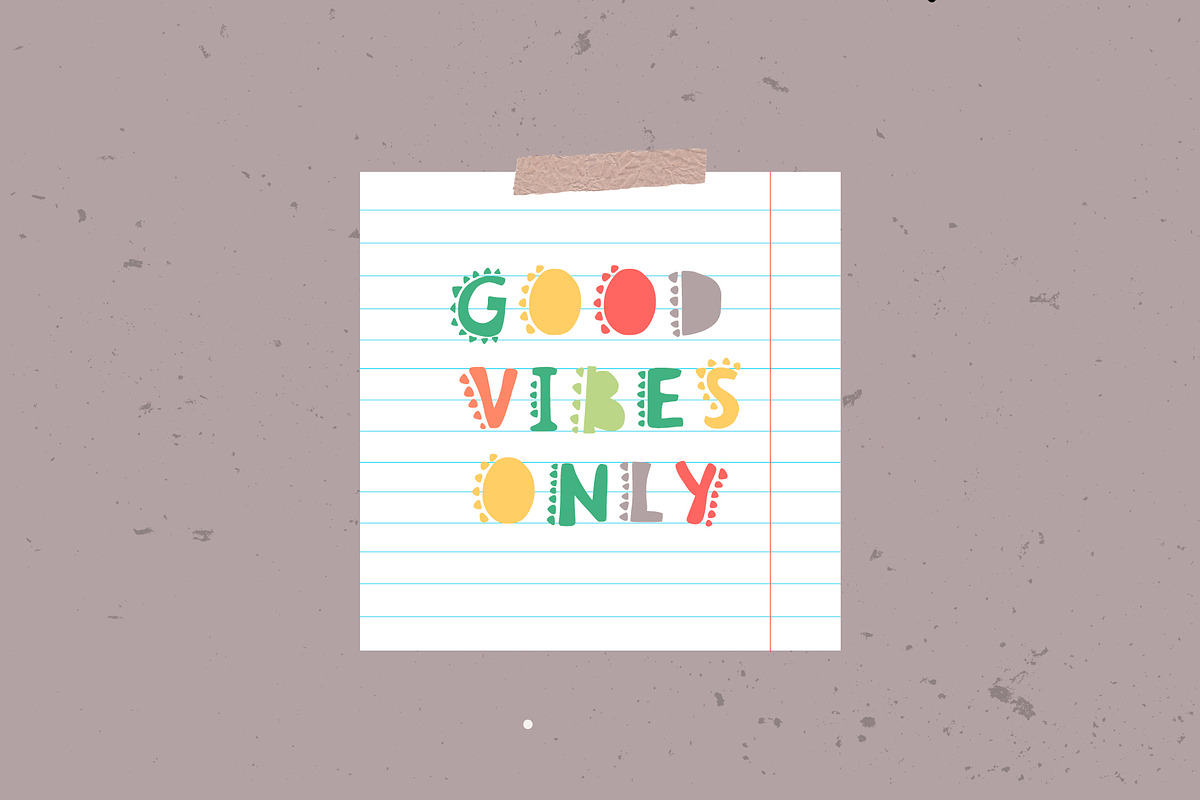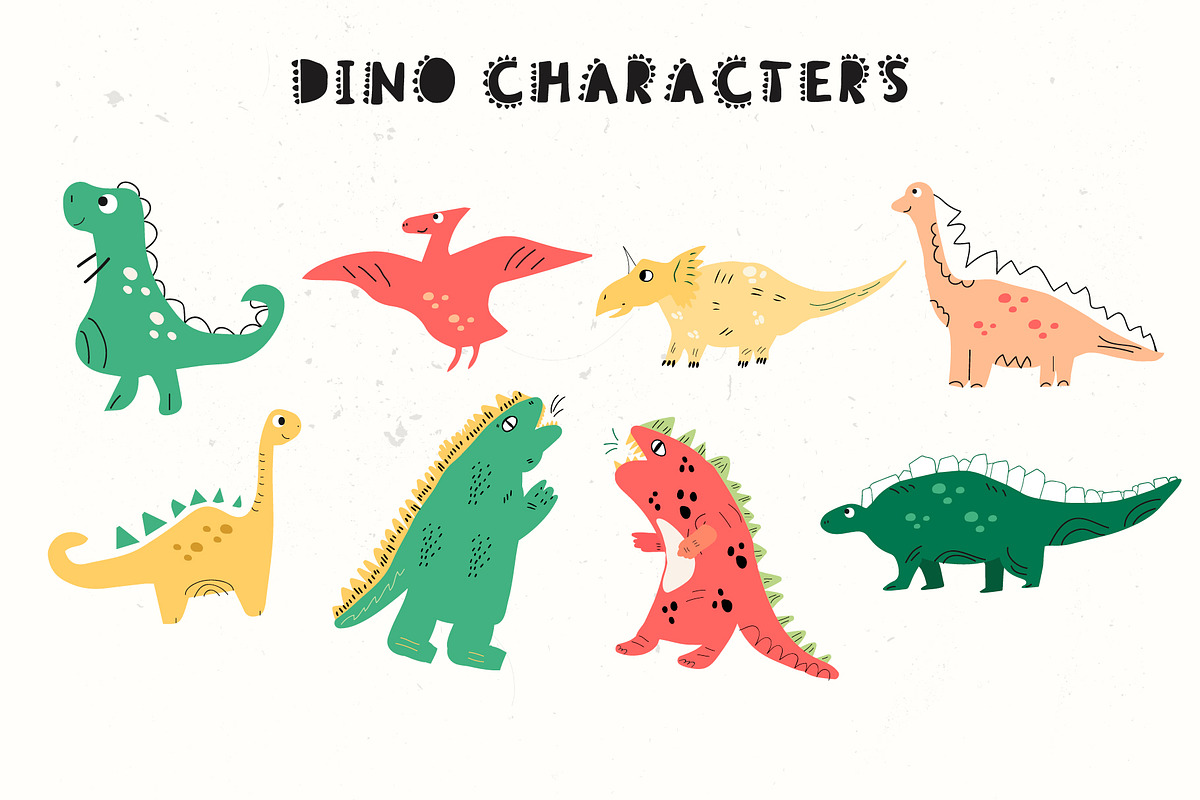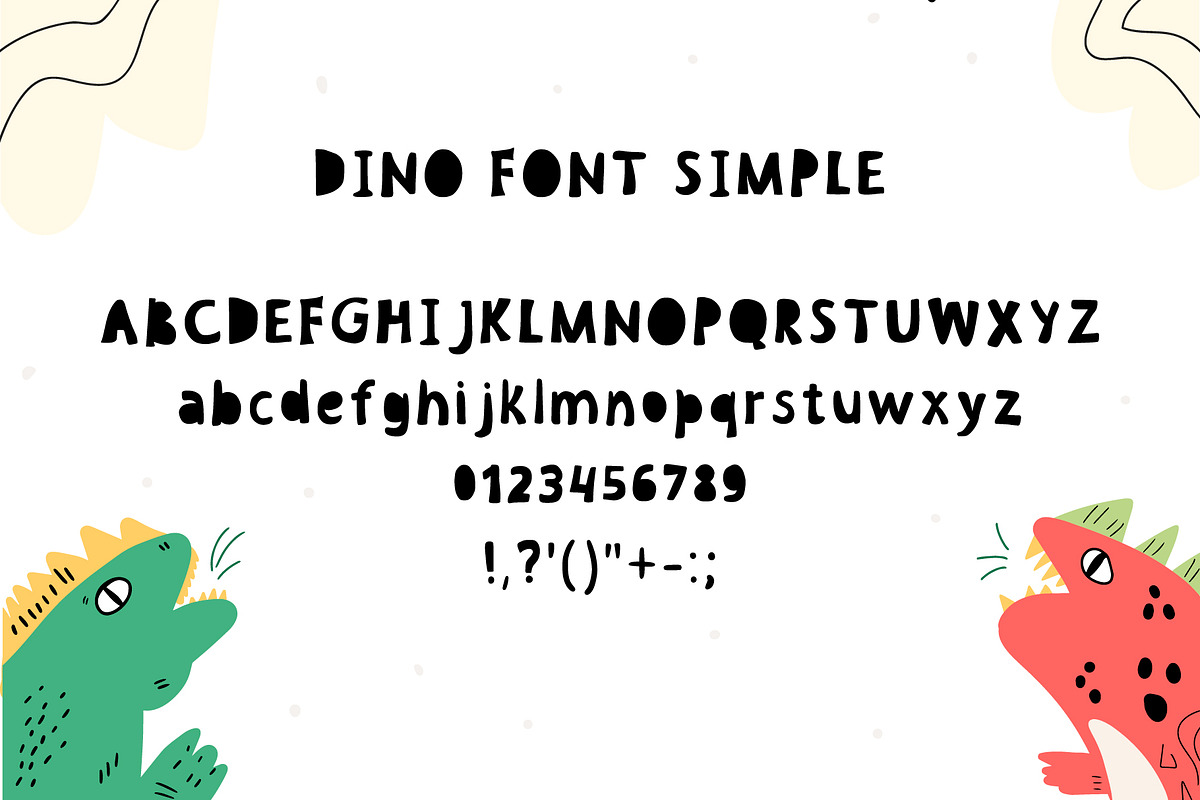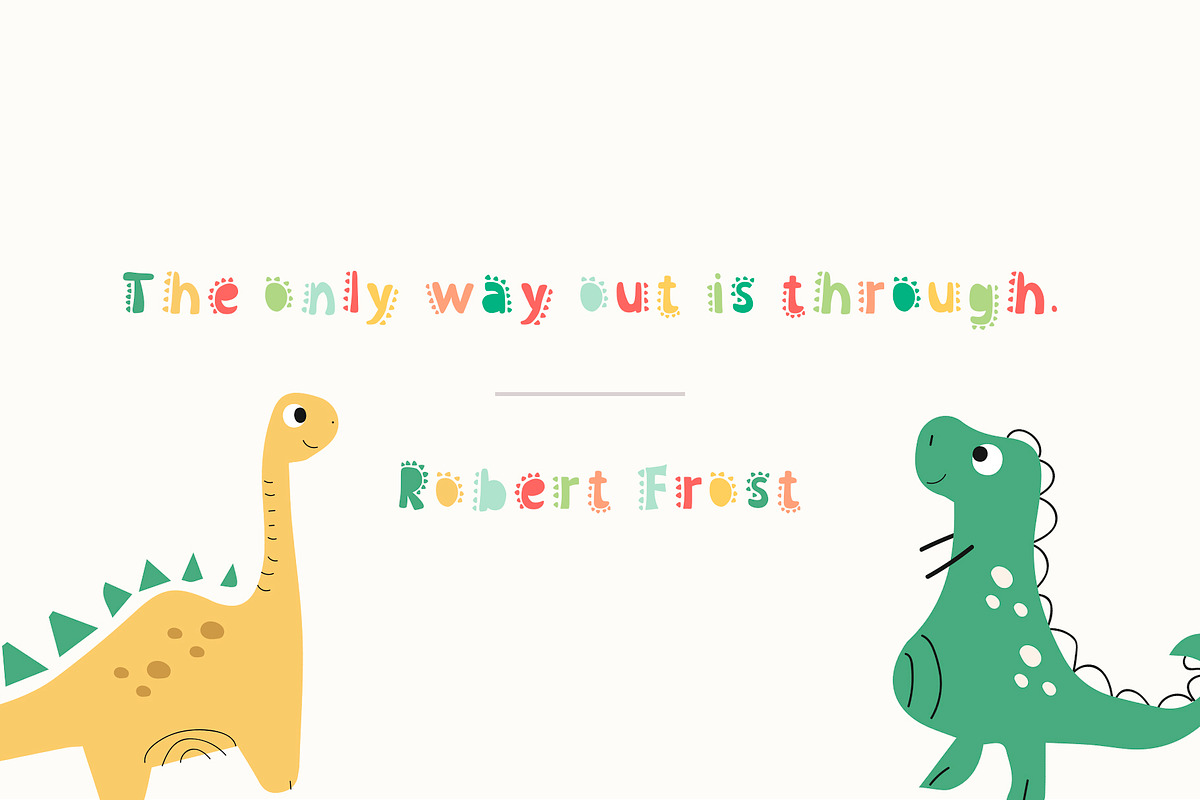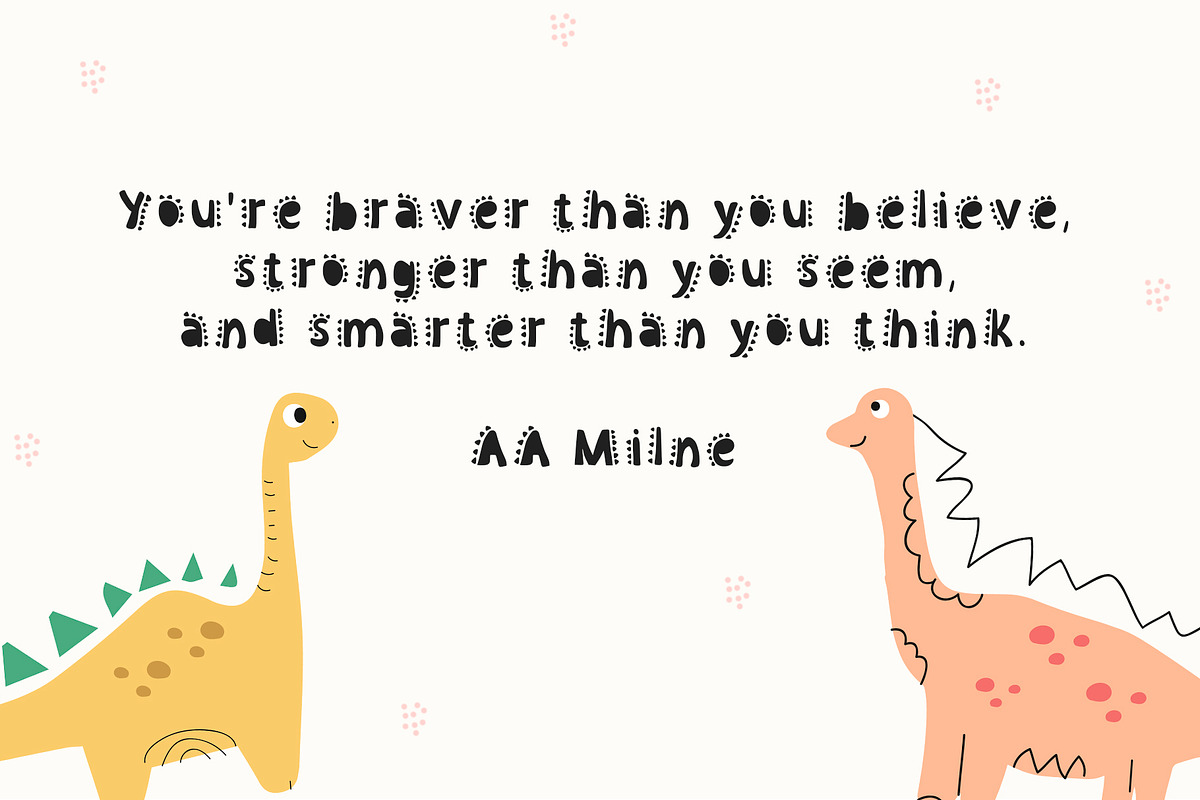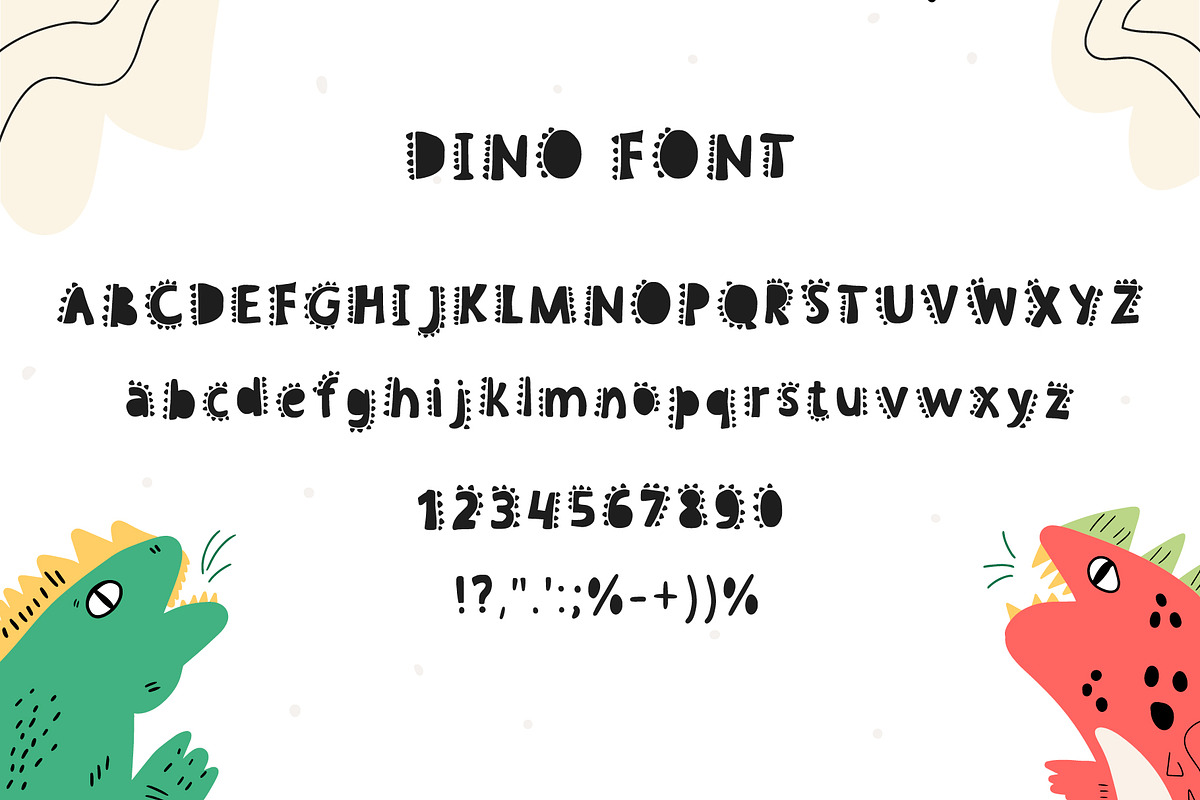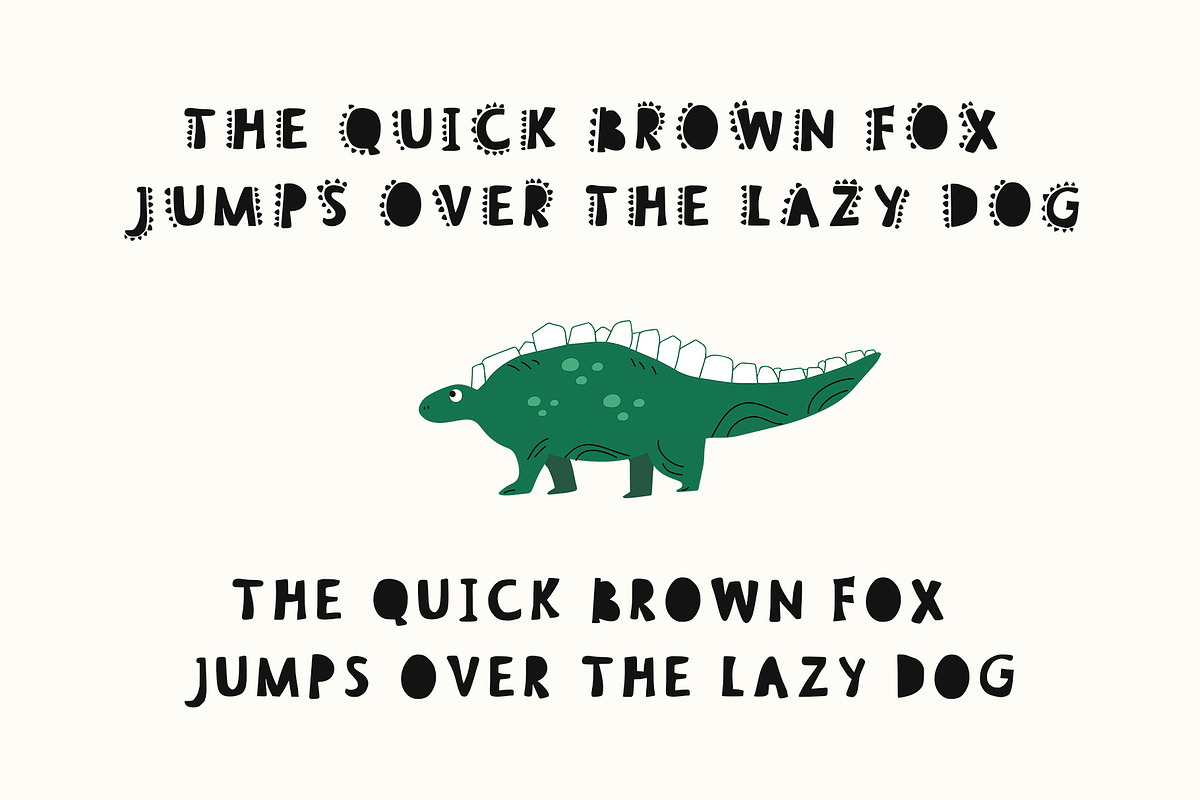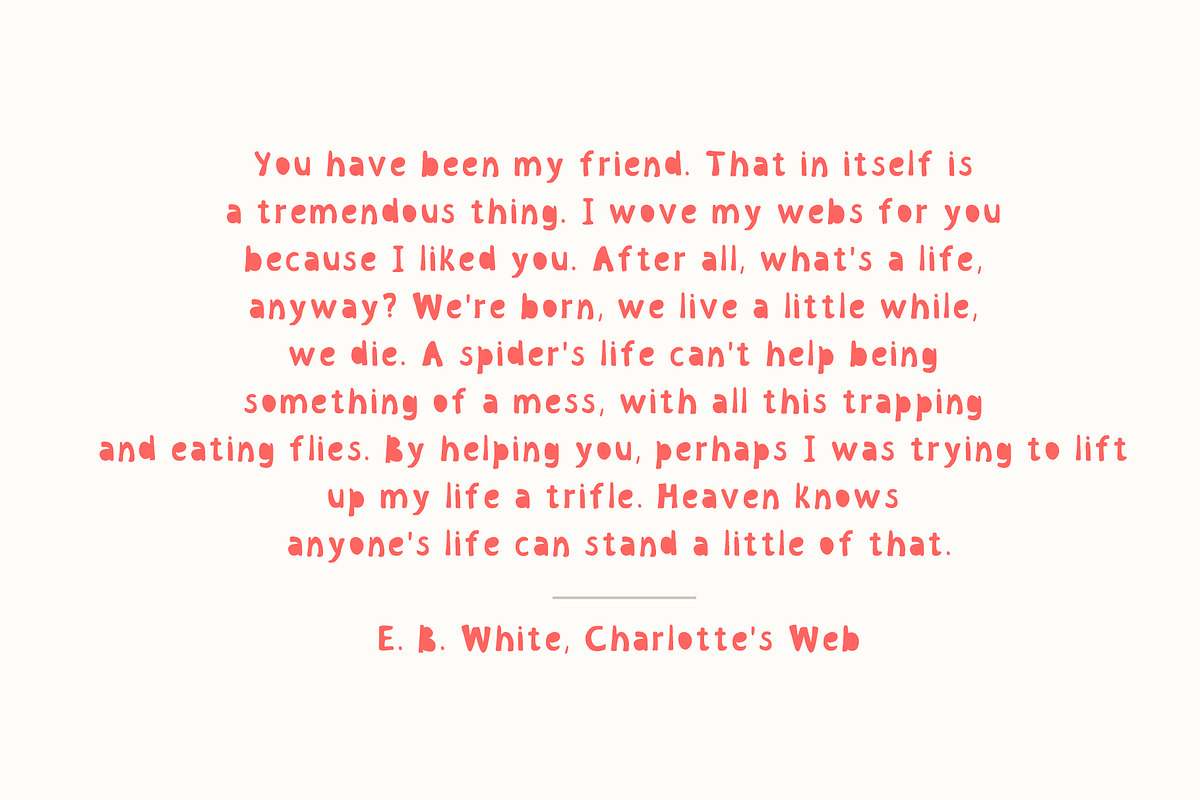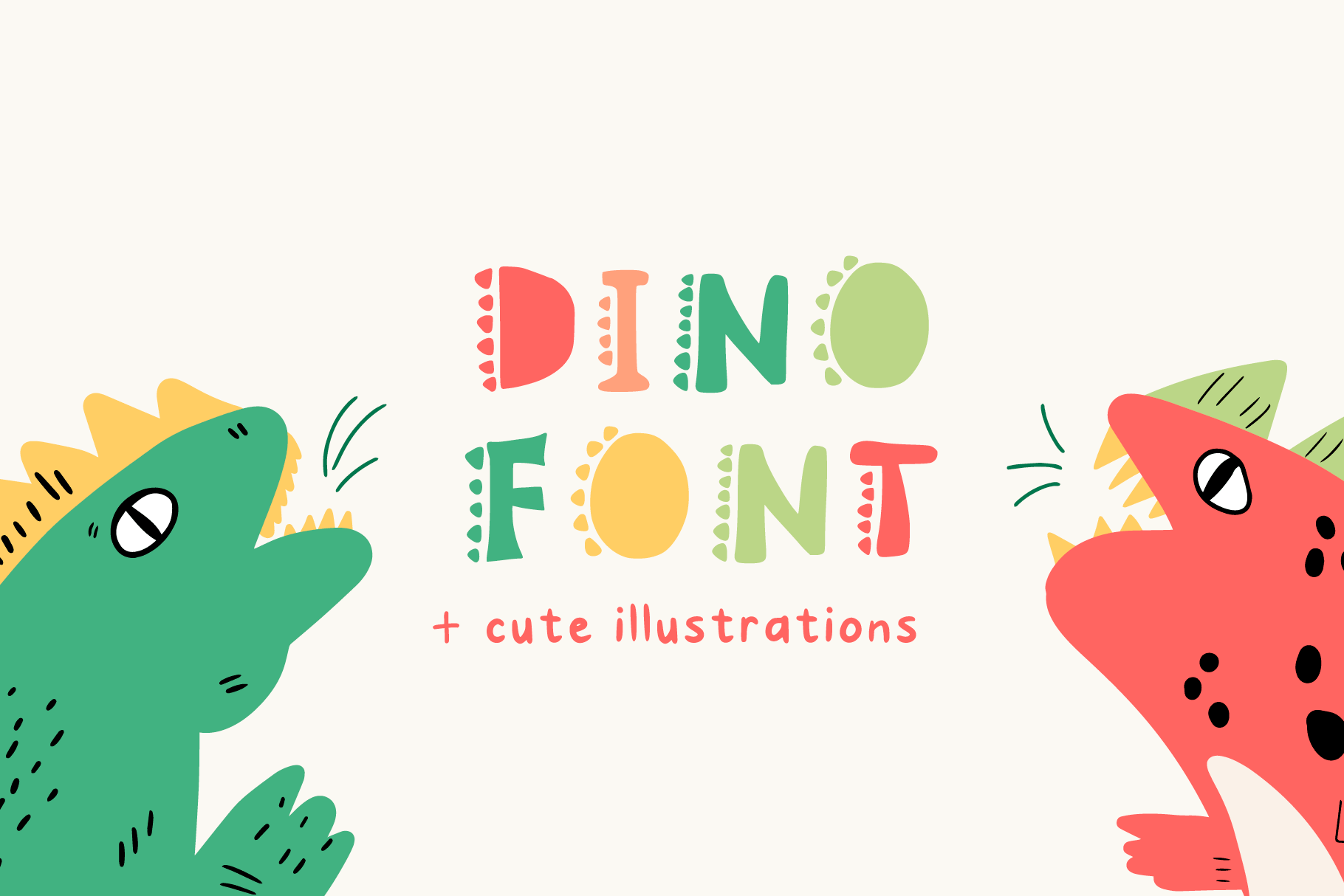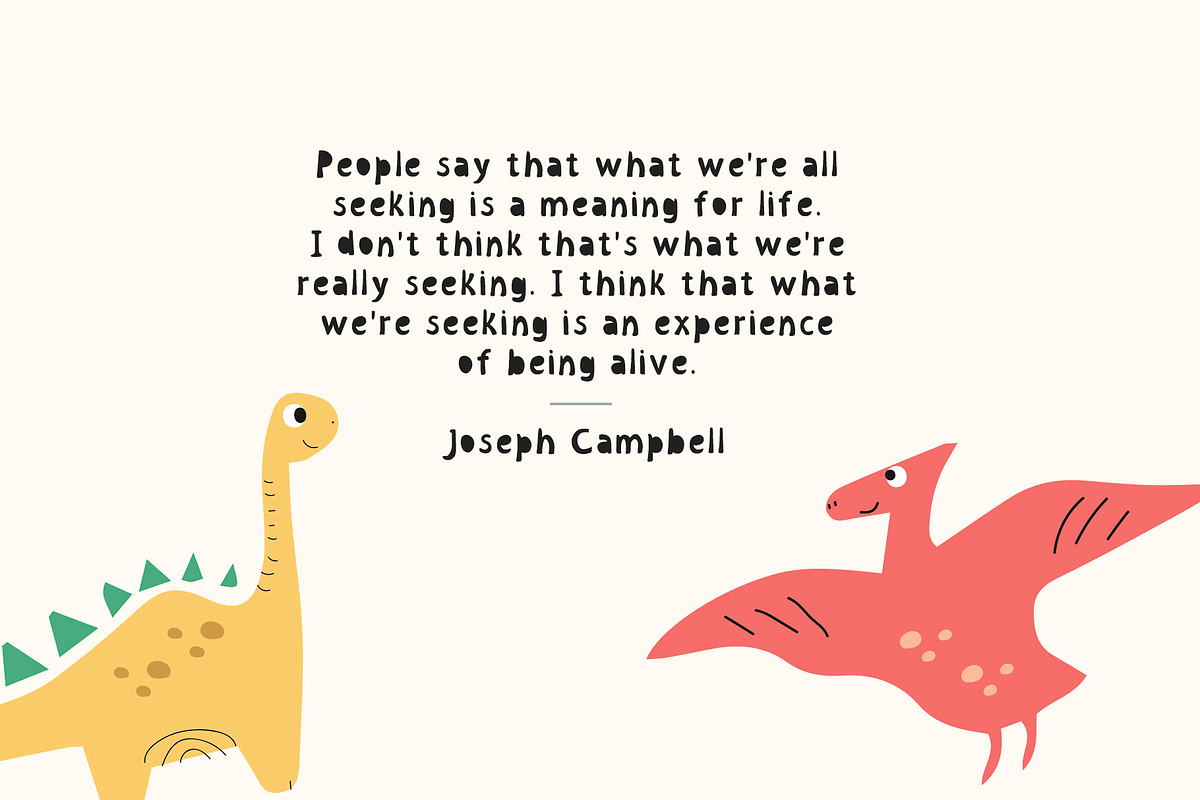
DINO font - playful kid's font
Hi there! ♡ My new kid's font in two versions.
It's perfect for headlines, social media posts, posters, card, etc. This font can look kinda chaotic so I'm recommend to use ''Dino font'' for headlines and "Dino font Simple" for other text (e: quote).